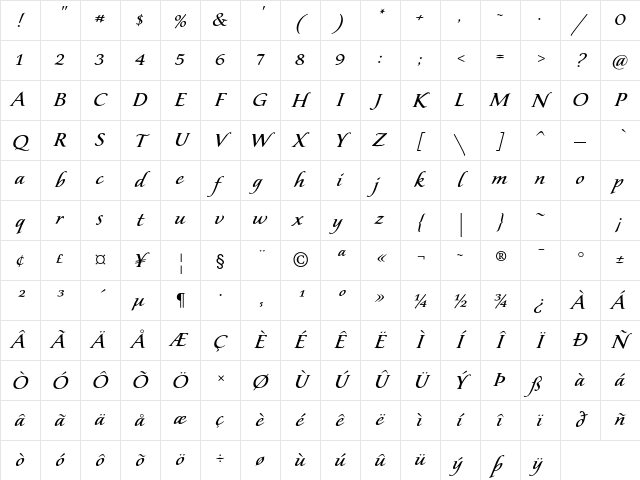
Florens LP Std Regular
Designer: Garrett Boge
Design Context for Florens LP Std
Florens LP Std is a composed and adaptable typeface that performs quietly and consistently across a wide range of design contexts.